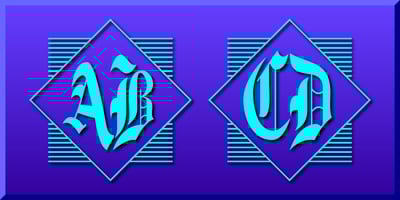
Diamond Monogram Font Family was designed by Gerald Gallo and published by Gerald Gallo. Diamond Monogram contains 1 styles and family package options. The diamond monogram fonts are used to prepare monograms of 2 characters and 3 characters.